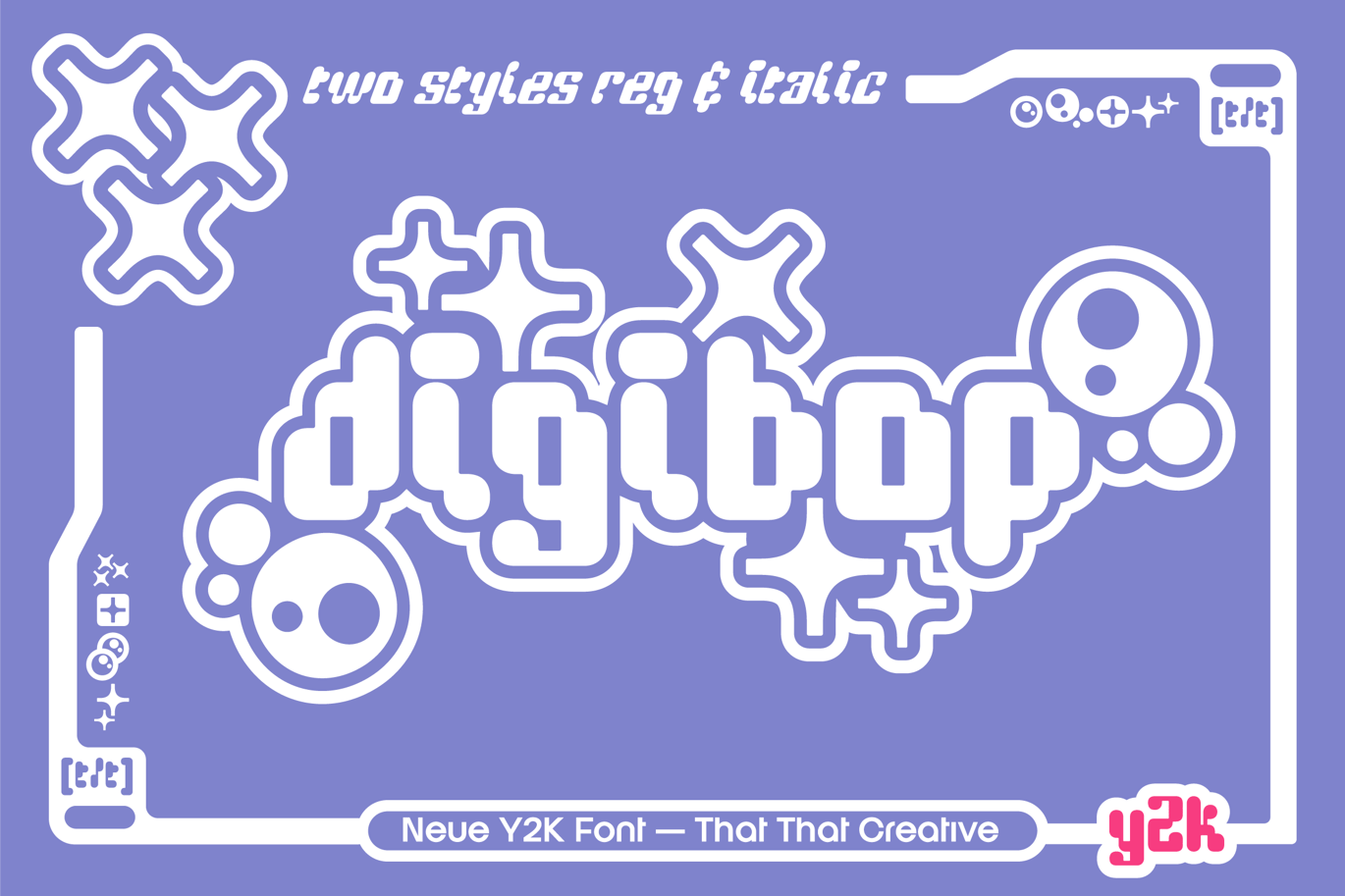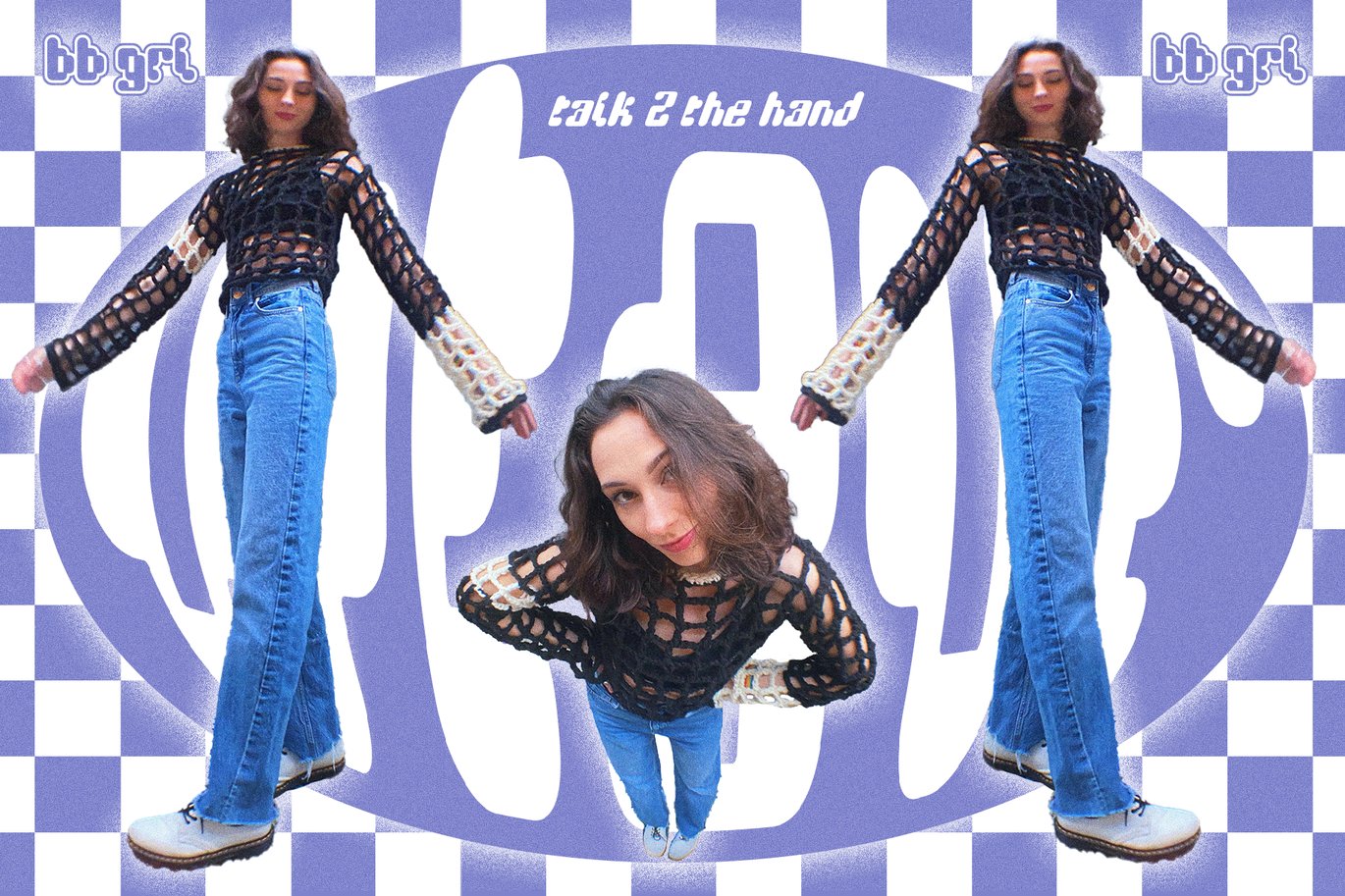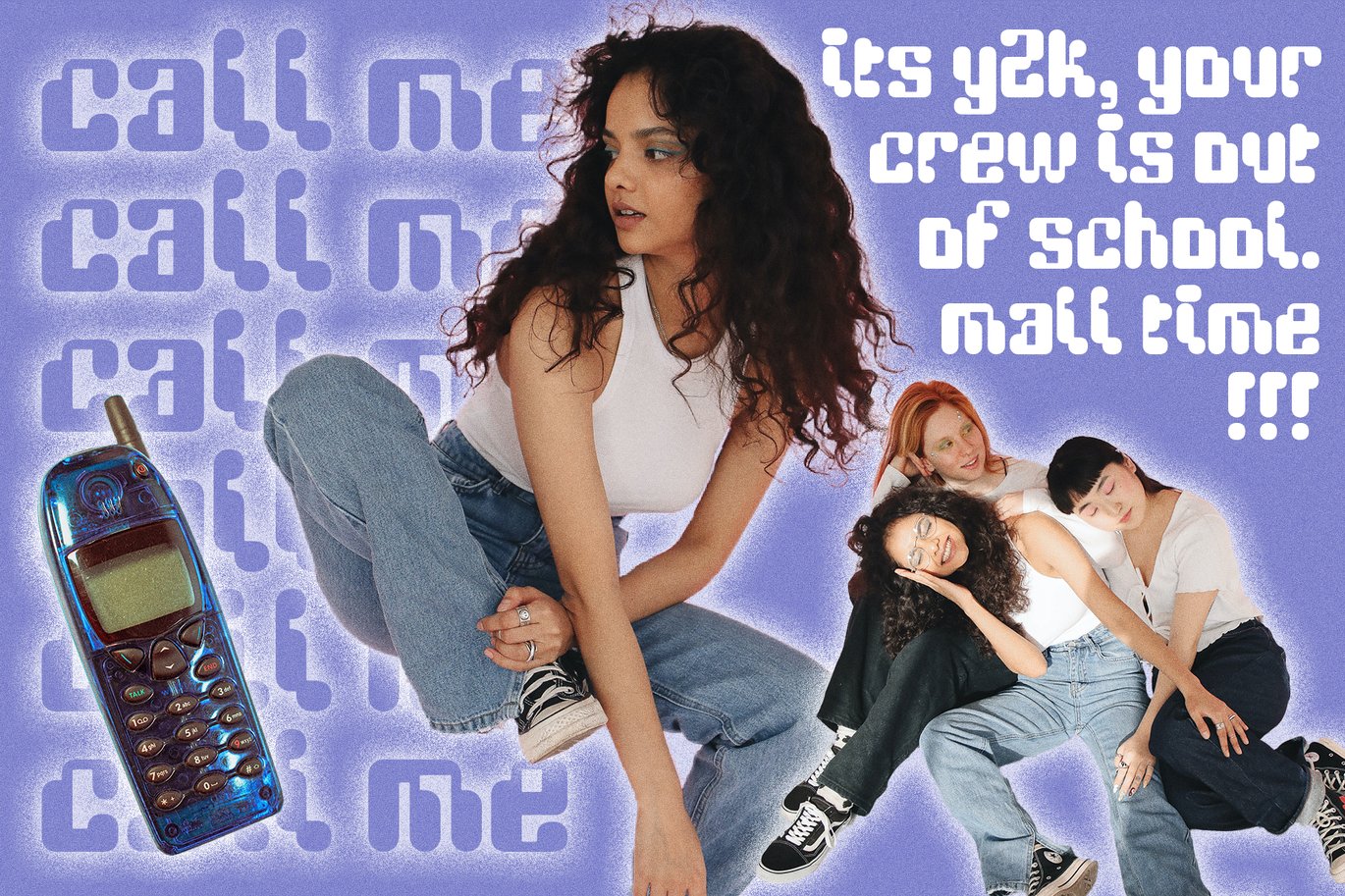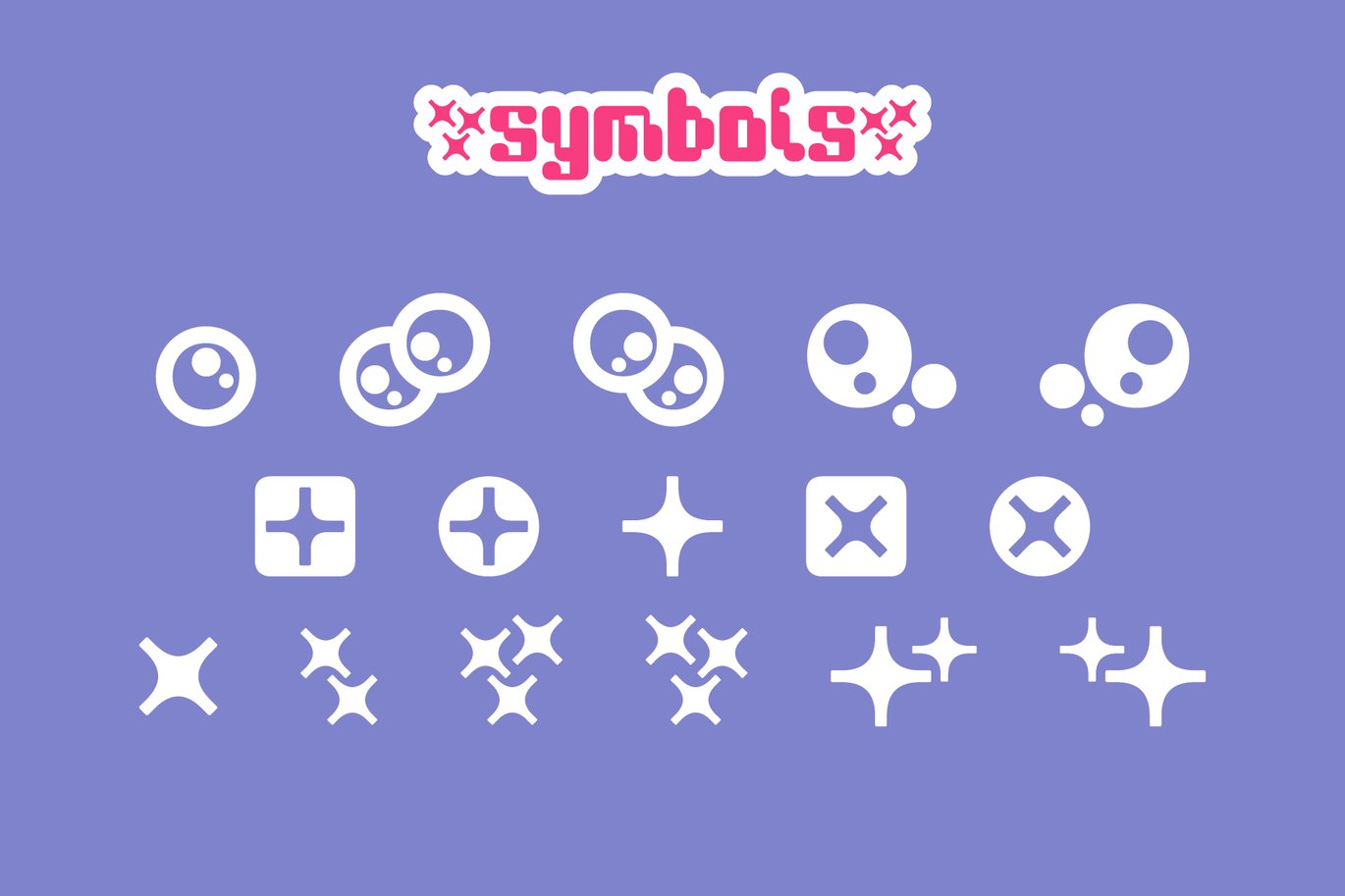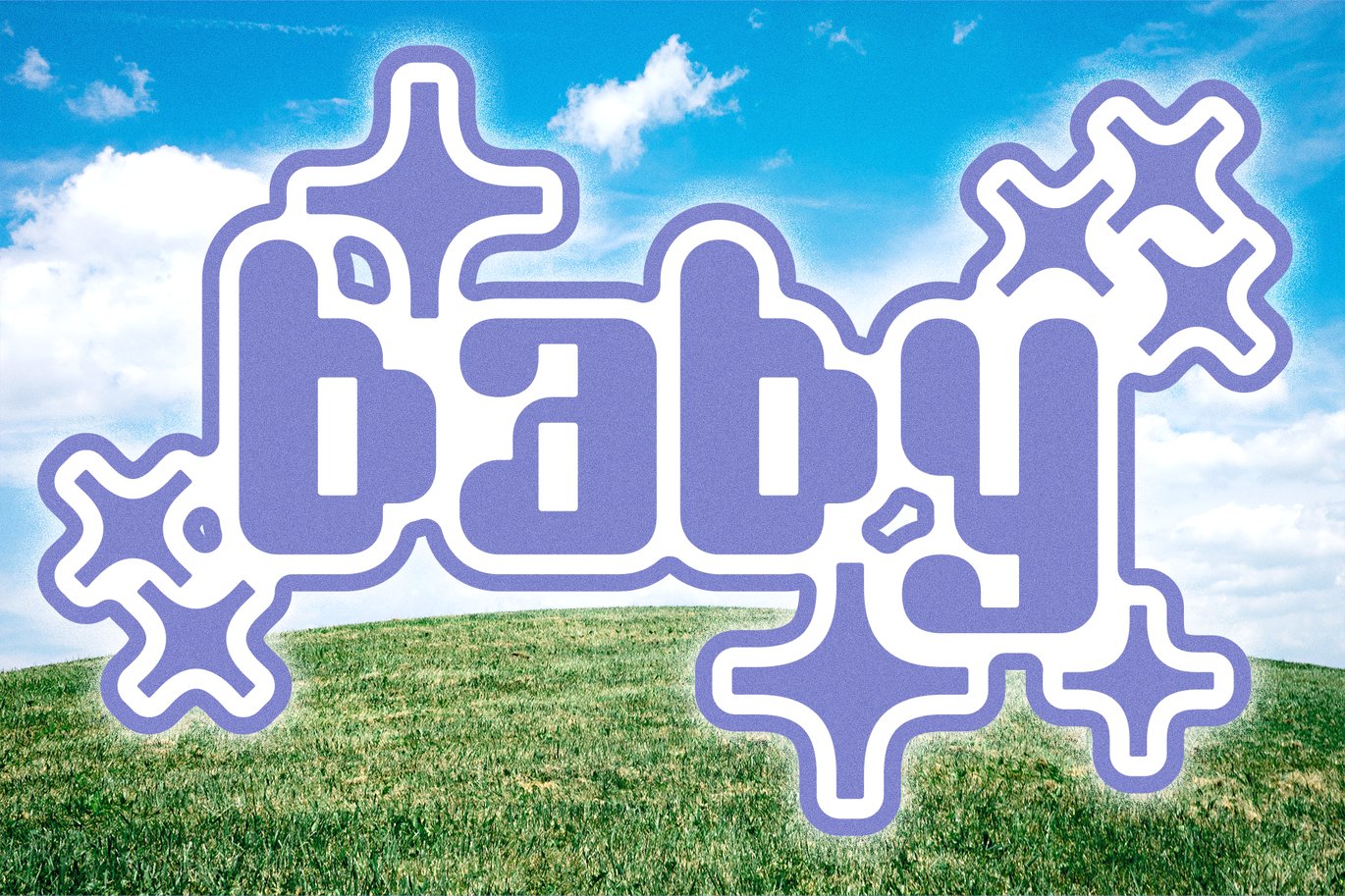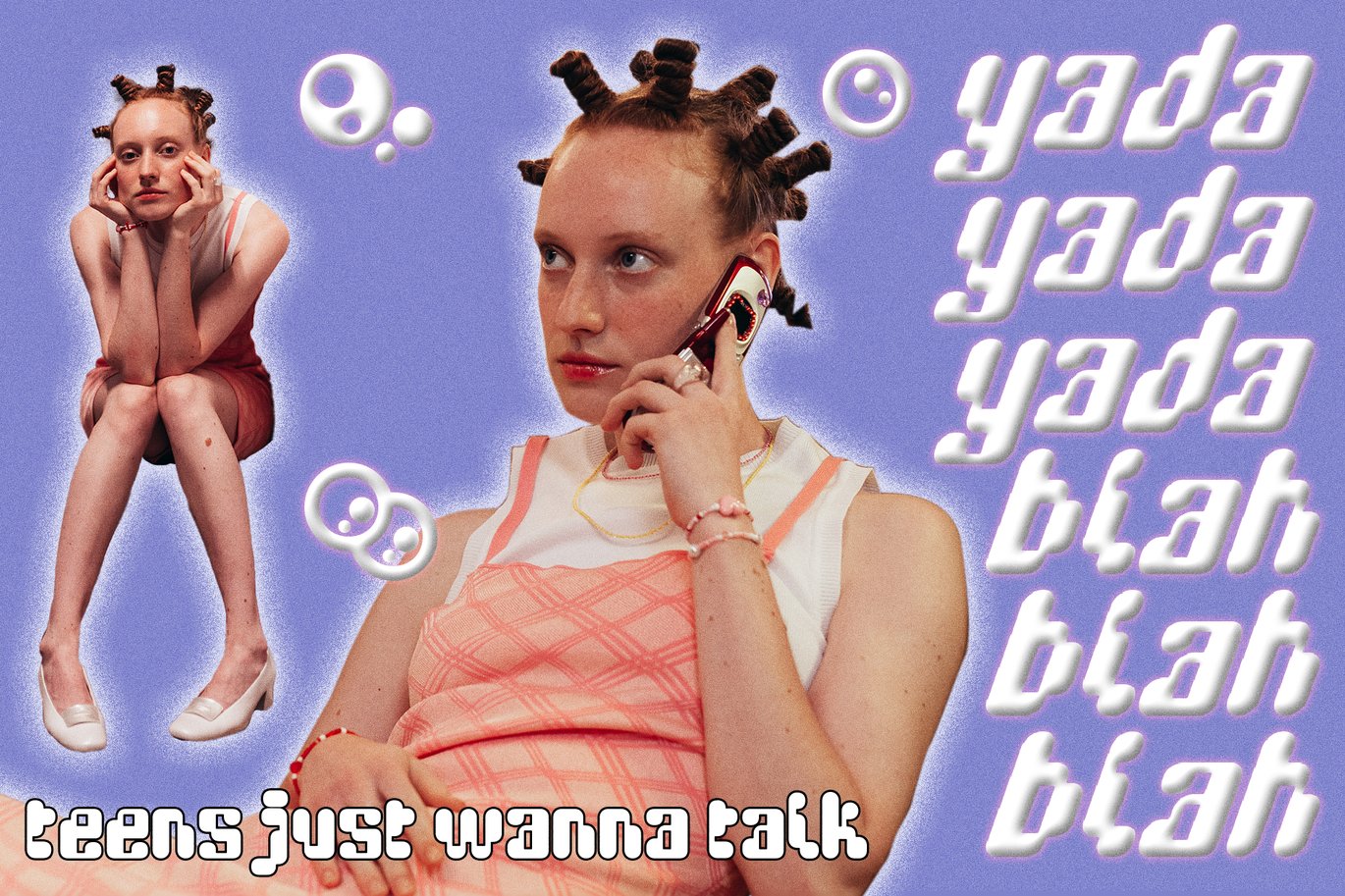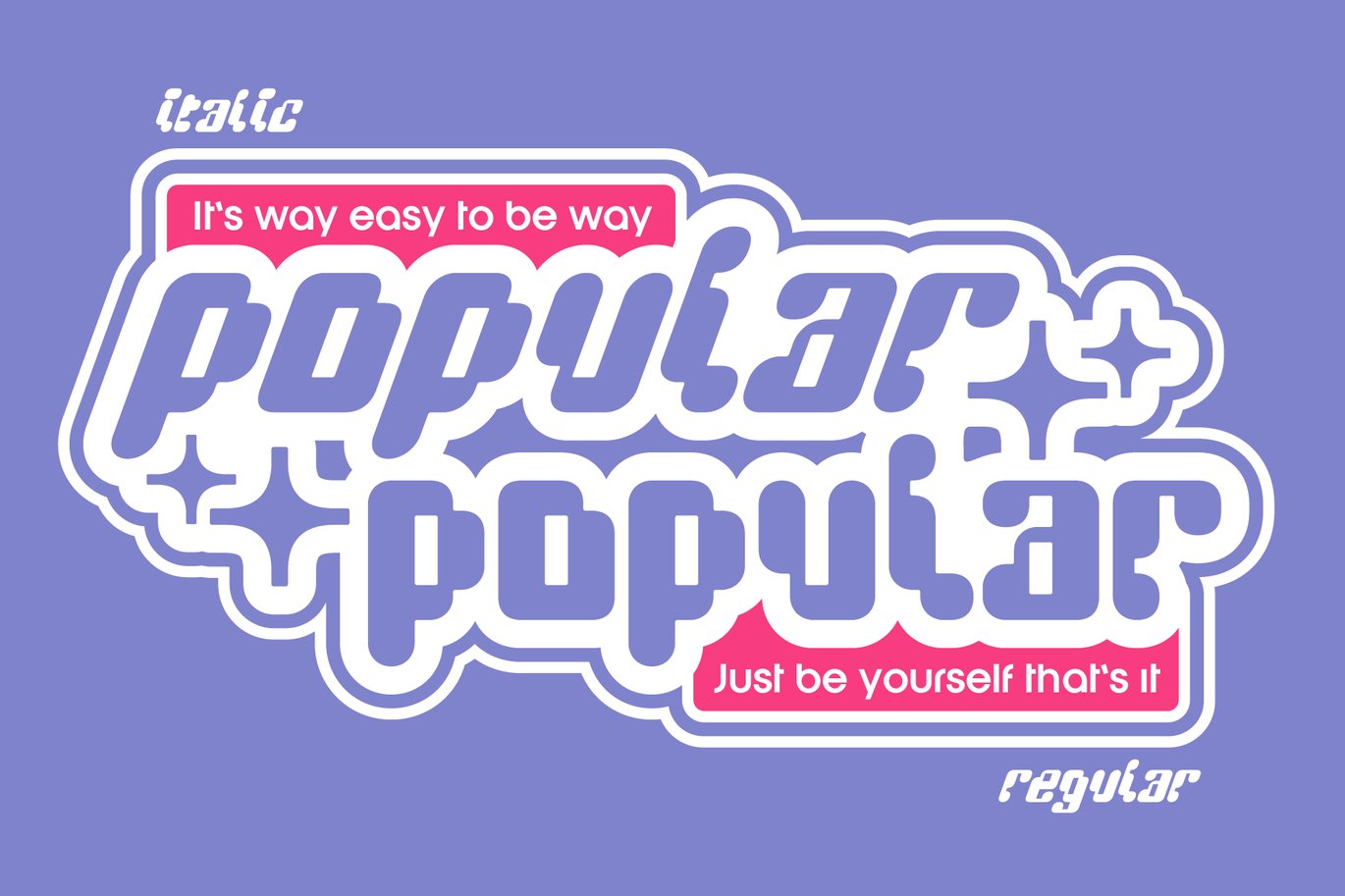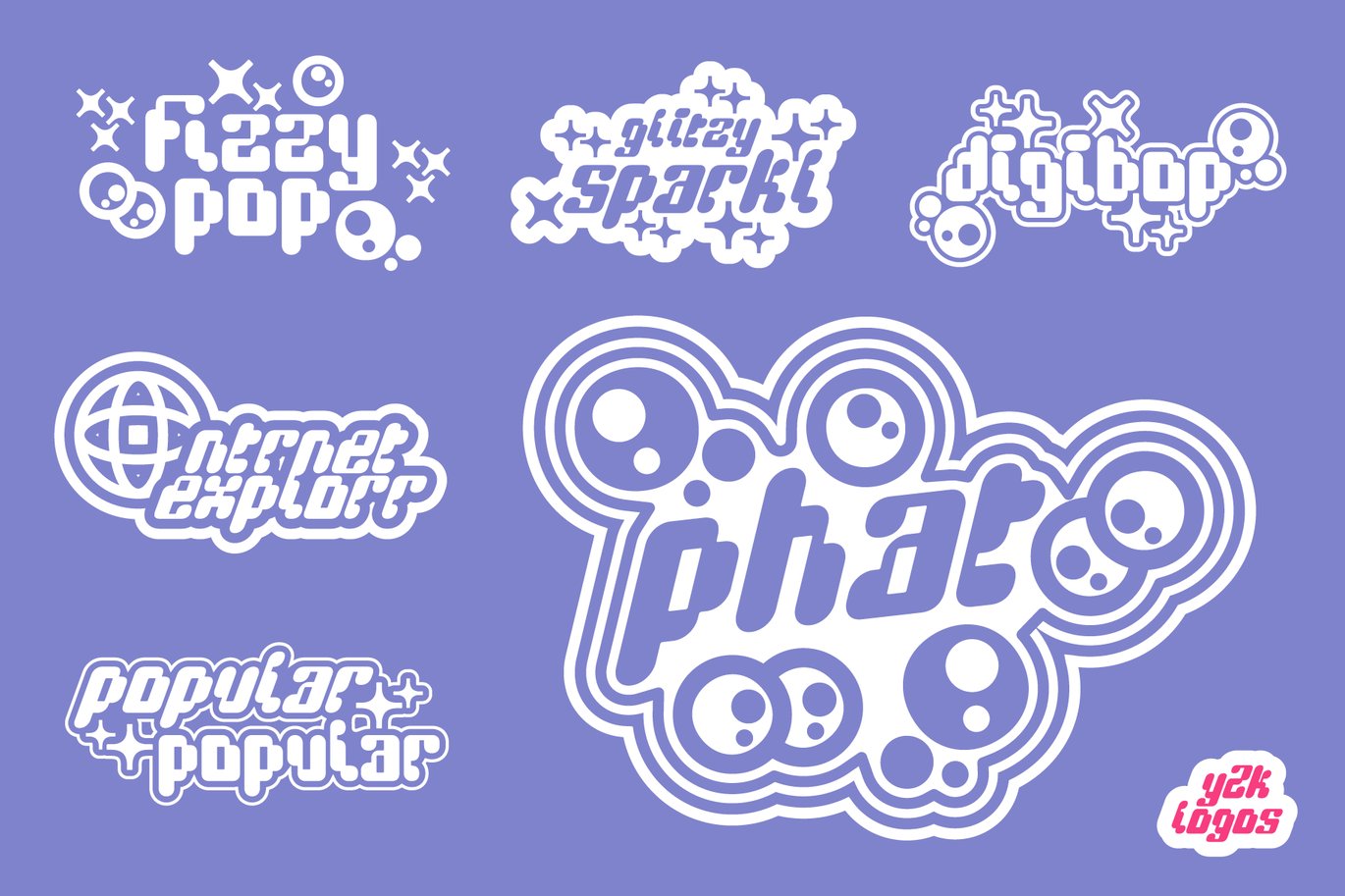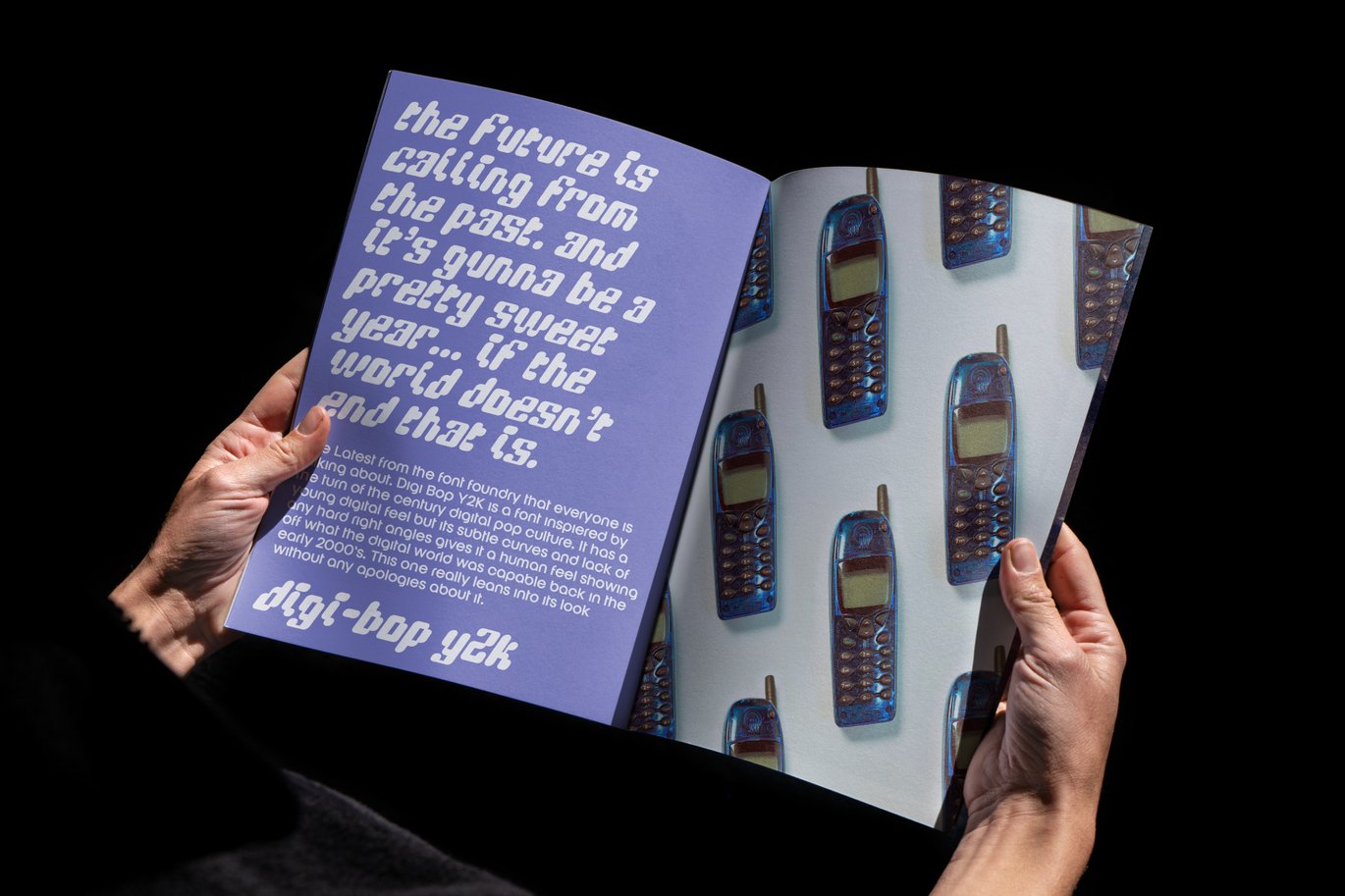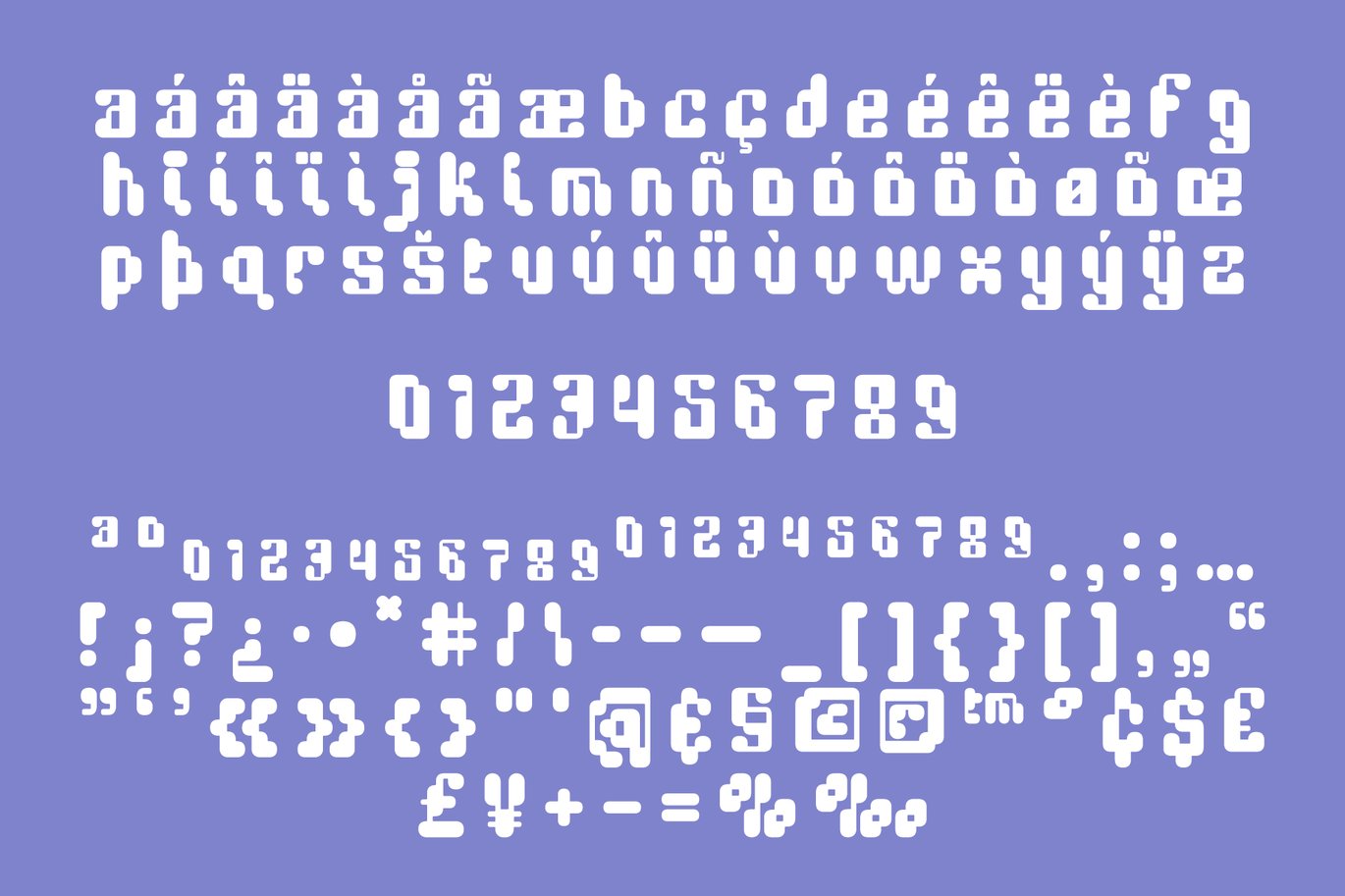
DigiBop Y2K font
DigiBop Y2K is a real head turner. It is a modern take on a retro (is Y2K retro yet) digital era font. this font is perfect for branding, Instagram, print, posters, logos, magazines, headlines and more. It comes in regular and italic. This font hits on 90’s and early 2000’s nostalgia in a big way adding a playful bold fun take on the Y2K trend.